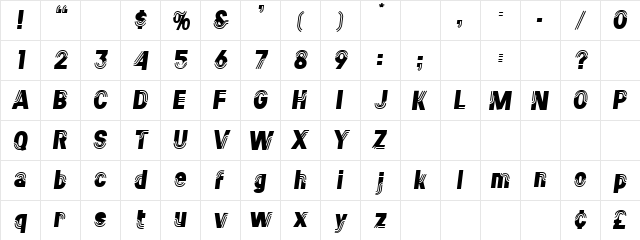
Simon Oblique
Design Context for Simon Typeface
Simon is a composed and adaptable typeface that performs quietly and consistently across a wide range of design contexts. Its italic angle brings a sense of urgency and motion to the letterforms.
Pro Tip: Try Simon for annotation and caption copy alongside an upright companion — the contrast in angle creates a dynamic but ordered typographic system.